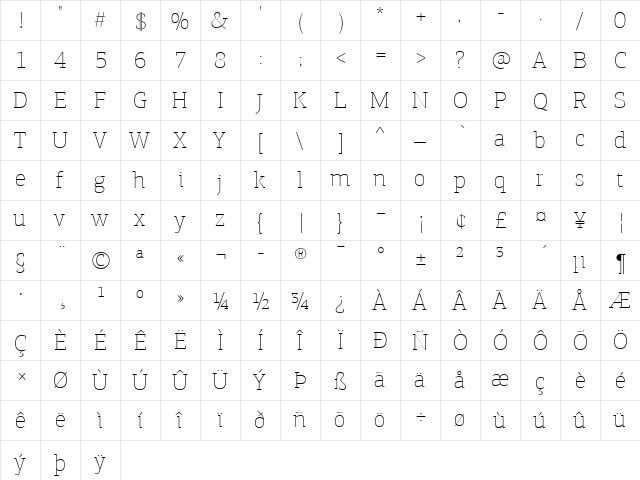
PF Agora Slab Pro ExtraThin
| Foundry | Parachute蠗orldwide |
| Designer | Panos Vassiliou |
Design Context for PF Agora Slab Pro Typeface
PF Agora Slab Pro combines the readability of serif typography with the visual weight of a slab construction, resulting in a typeface that feels both authoritative and approachable. The delicate stroke weight brings airiness and refinement to layouts.
Works well in editorial design, news publishing, impactful branding, and poster typography.
Pro Tip: Try PF Agora Slab Pro set tight in headlines for a classic editorial feel. Its slab serifs create strong horizontal rhythm that anchors a page layout.